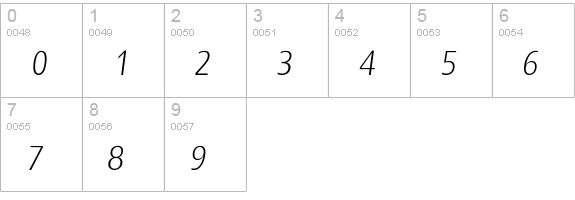
Slippy-LightItalic Font Details
Introducing Slippy-LightItalic, a stunning font that combines elegance and modernity in perfect harmony. This font is the epitome of sophistication, with its sleek and slender letterforms that gracefully dance across the page. Slippy-LightItalic exudes a sense of effortless beauty, making it the ideal choice for any design project that requires a touch of finesse. But what sets Slippy-LightItalic apart from other fonts is that it comes with an incredible bonus – it's completely free! Yes, you read that right. This exquisite font is freely available to download at FontsMarket.com, where you can access it with just a few clicks. With Slippy-LightItalic, you can add a touch of class to your designs without breaking the bank. Whether you're working on a logo, a website, a poster, or any other creative endeavor, this font will elevate your project to new heights. Its delicate curves and subtle slant create a sense of elegance that is hard to resist. Not only does Slippy-LightItalic offer unparalleled visual appeal, but it also boasts excellent legibility, ensuring that your message is conveyed effortlessly to your audience. Its clean lines and well-defined letterforms make reading a pleasure, whether it's in print or on a screen. So why wait? Enhance your designs with the captivating beauty of Slippy-LightItalic. Download it for free today at FontsMarket.com and unlock a world of endless creative possibilities.